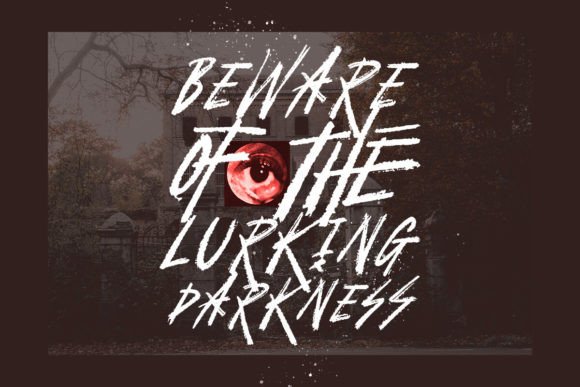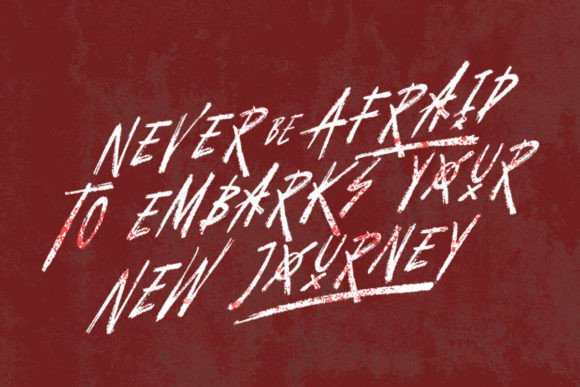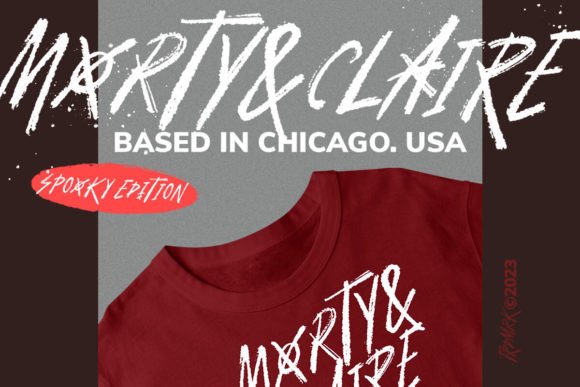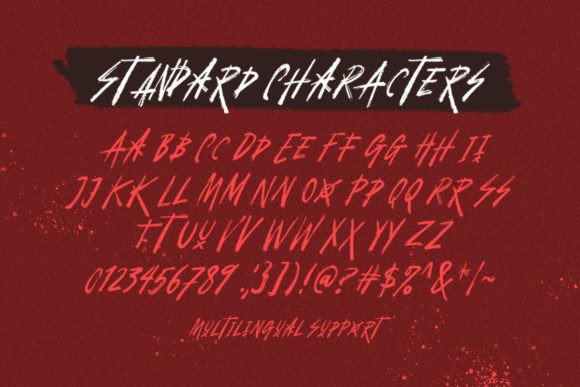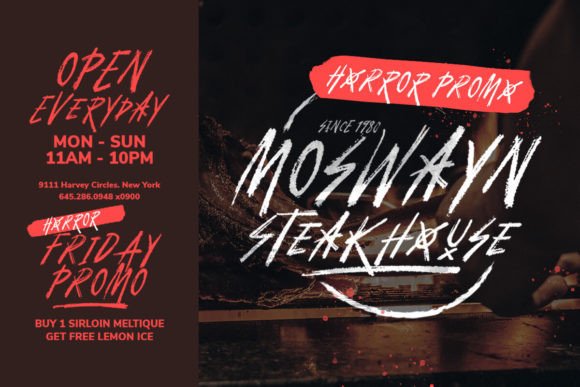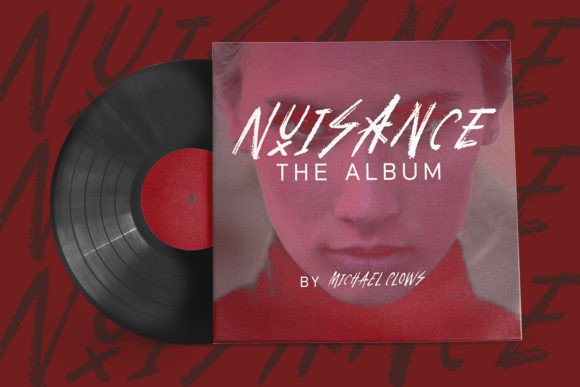
The Perfect Blend of Authenticity and Creativity
Have you ever been working on a design project, and you just can’t seem to find the right font to capture the essence of your vision? You’re scrolling through font libraries, trying out different styles, and nothing seems to be quite right. That’s when you stumble upon a hidden gem – a font that’s raw, organic, and full of character. For designers, this is a moment of pure joy, and it’s exactly what happens when you discover the Bloody Grounds Font.
Bloody Grounds Font is a textured dry brush font that adds a touch of authenticity to any design. Its hand-drawn appearance makes it perfect for projects that seek to stand out with a freestyle display typeface. Whether you’re working on a branding project, a marketing campaign, or simply want to add some personality to your social media graphics, Bloody Grounds Font is a valuable addition to your design toolkit.
- Unique Characteristics: This font features a unique blend of gothic and horror-inspired elements, with intricate details and ornate designs, making it perfect for creating a spooky or eerie atmosphere in designs, such as horror movie posters, haunted house decorations, or gothic-themed artwork.
Bloody Grounds Font Review
As a designer, I was excited to dive into the Bloody Grounds Font and see what it had to offer. Overall, I think it’s a solid addition to any designer’s toolkit. Here’s what I loved:
- ✨ Unique aesthetic: The font has a distinct, rugged feel that’s perfect for horror or thriller-themed projects.
- ✨ High-quality glyphs: The Bloody Grounds Font features crisp, well-designed glyphs that are sure to make a statement.
- ✨ Versatile: Whether you’re working on a poster, book cover, or website, this font is versatile enough to fit the bill.
- ⚠️ Limited language support: While the font covers the basics, it’s not optimized for languages like Chinese or Japanese.
- ⚠️ Not ideal for body text: While the font is great for headings and titles, it can be difficult to read in large blocks of text.
- ⚠️ Limited font sizes: Be careful when using this font in smaller sizes, as the bold lines can become difficult to read.
Overall, I think the Bloody Grounds Font is a great choice for designers looking to add some edge to their projects. While it may not be perfect, its unique aesthetic and high-quality glyphs make it a solid addition to any designer’s toolkit.
Tips for Getting the Most Out of Bloody Grounds Font
To get the most out of Bloody Grounds Font, use it sparingly to add a touch of edginess to your design. Pair it with clean and simple fonts to create contrast and visual interest. Experiment with different font sizes, colors, and styles to find the perfect balance for your design.
Bloody Grounds Font is perfect for designs that need a bold and edgy touch, such as:
- Rock music posters
- Horror movie promotions
- Edgy fashion designs